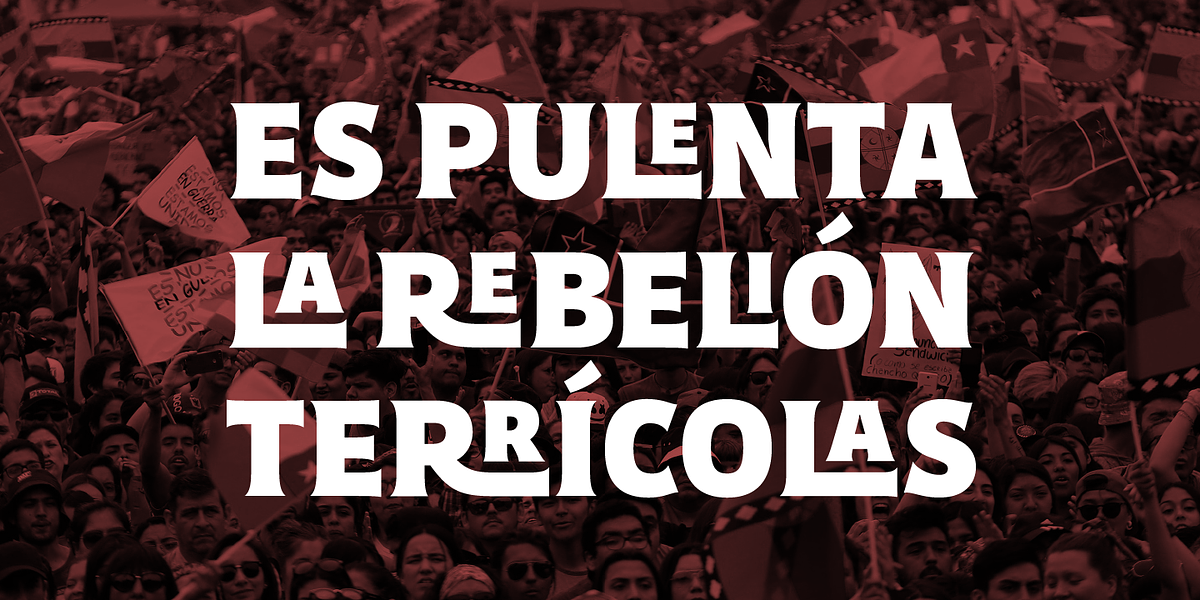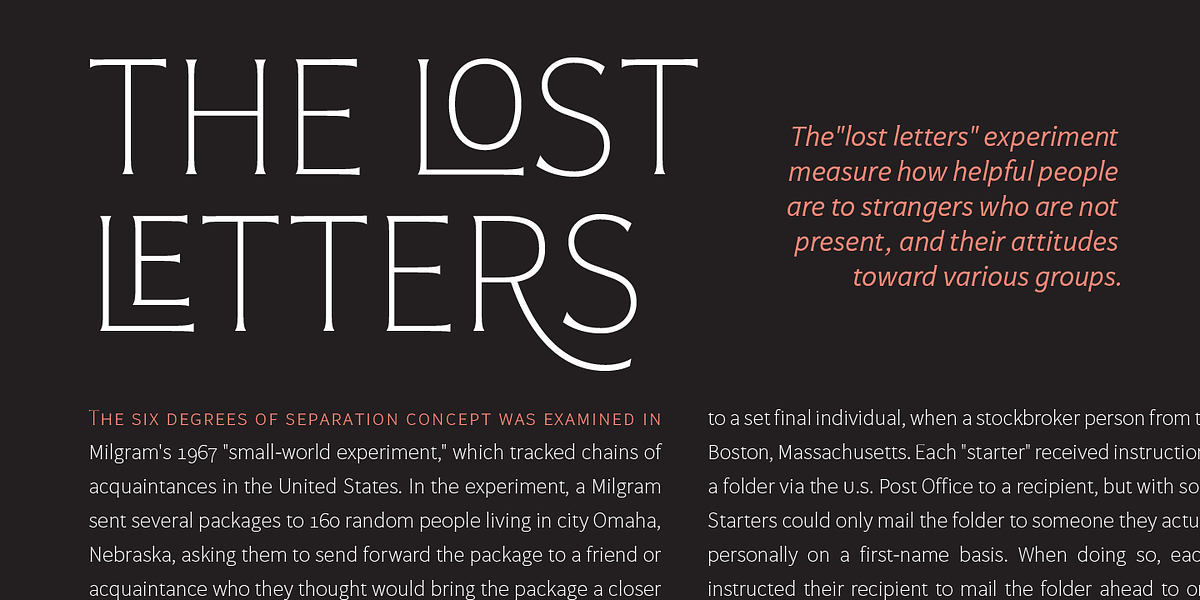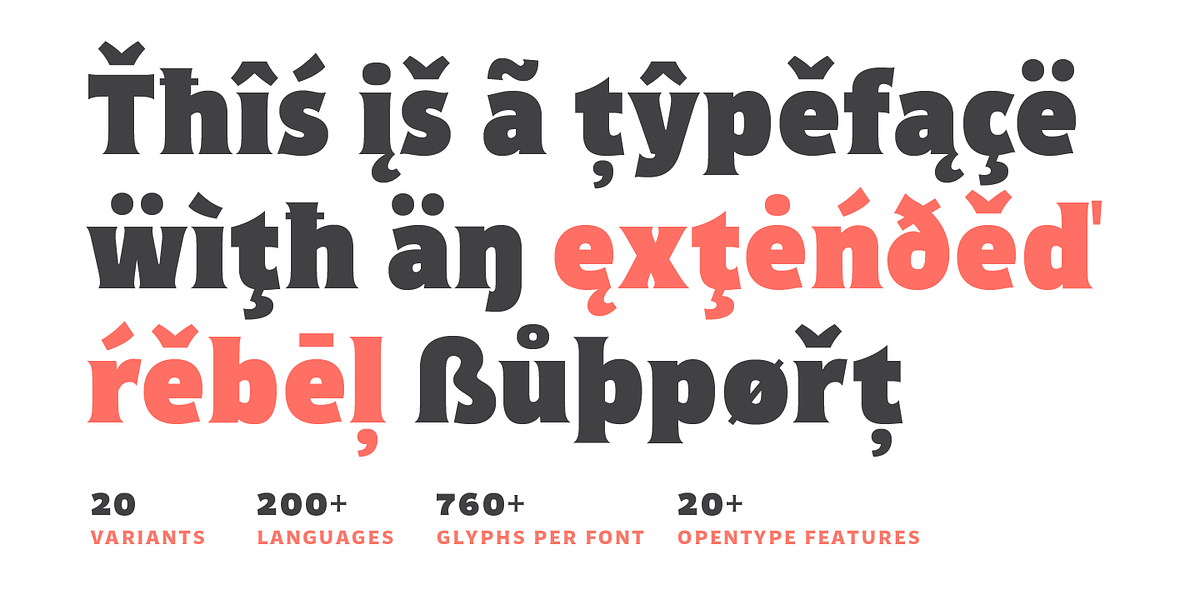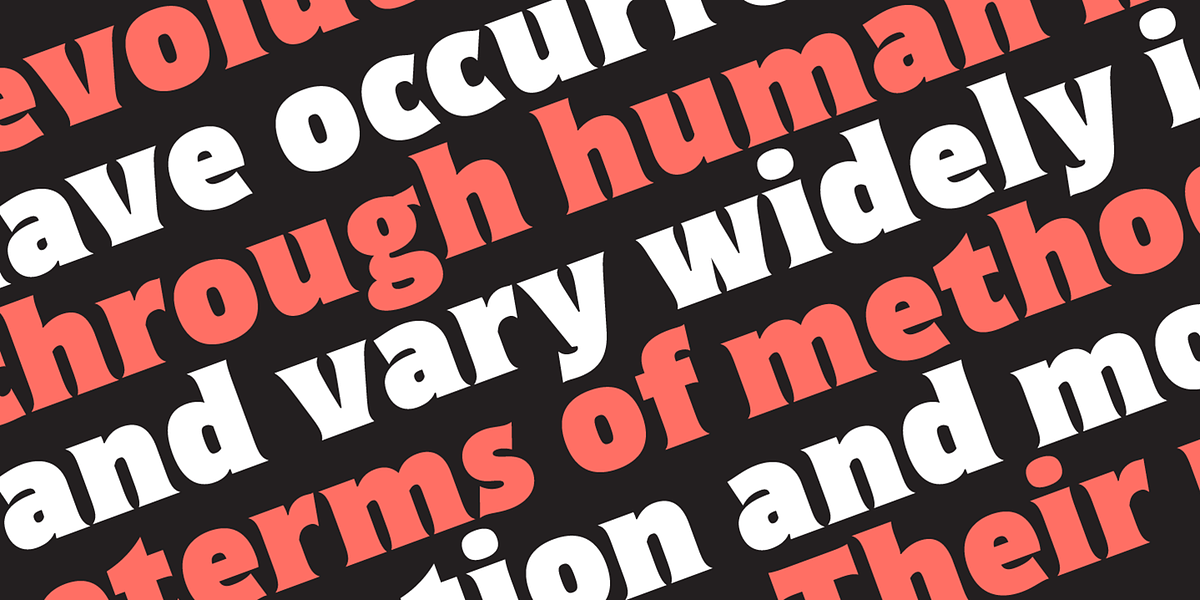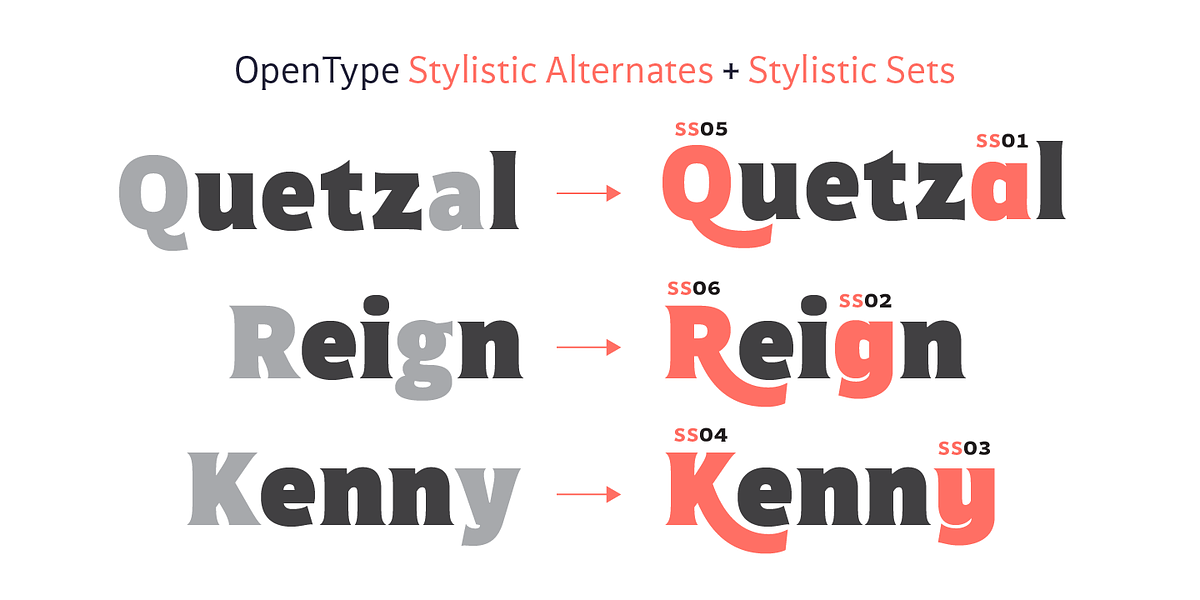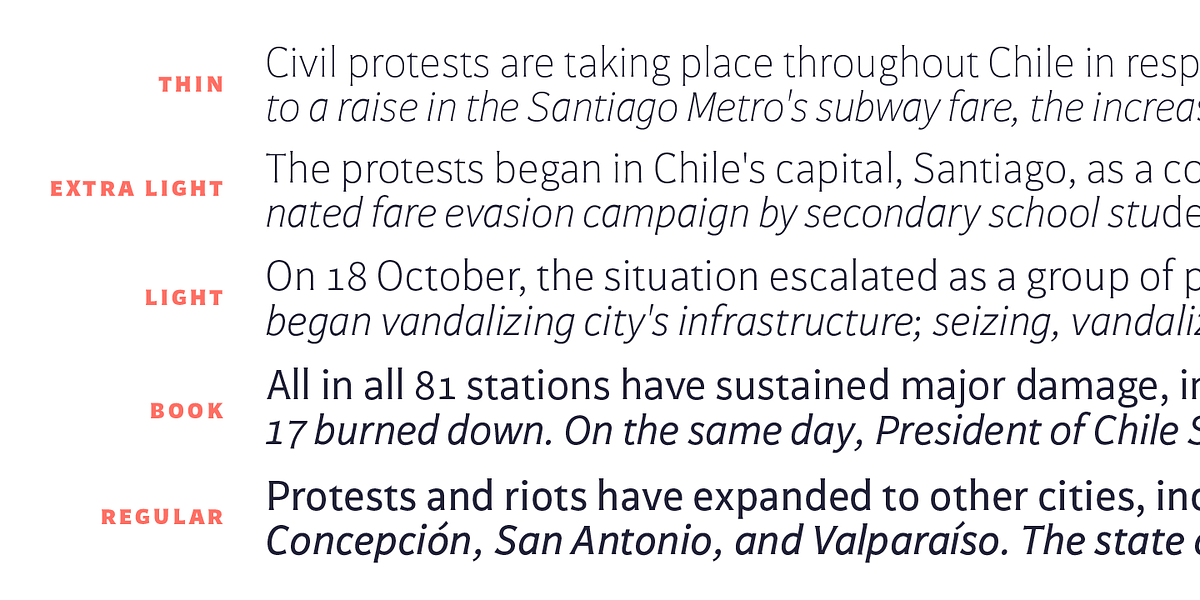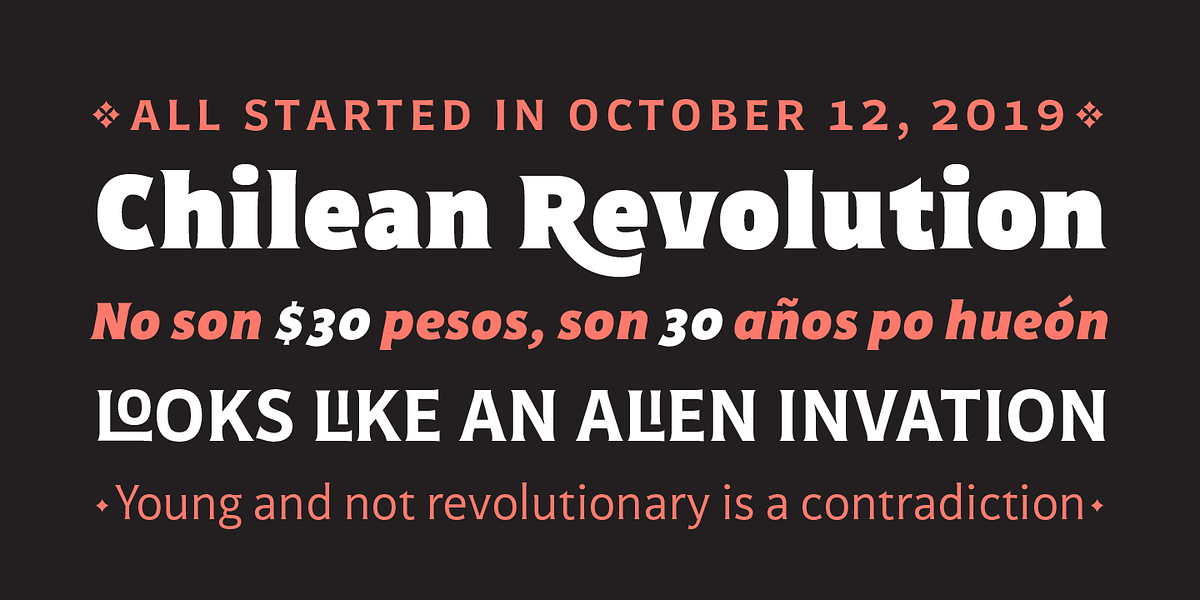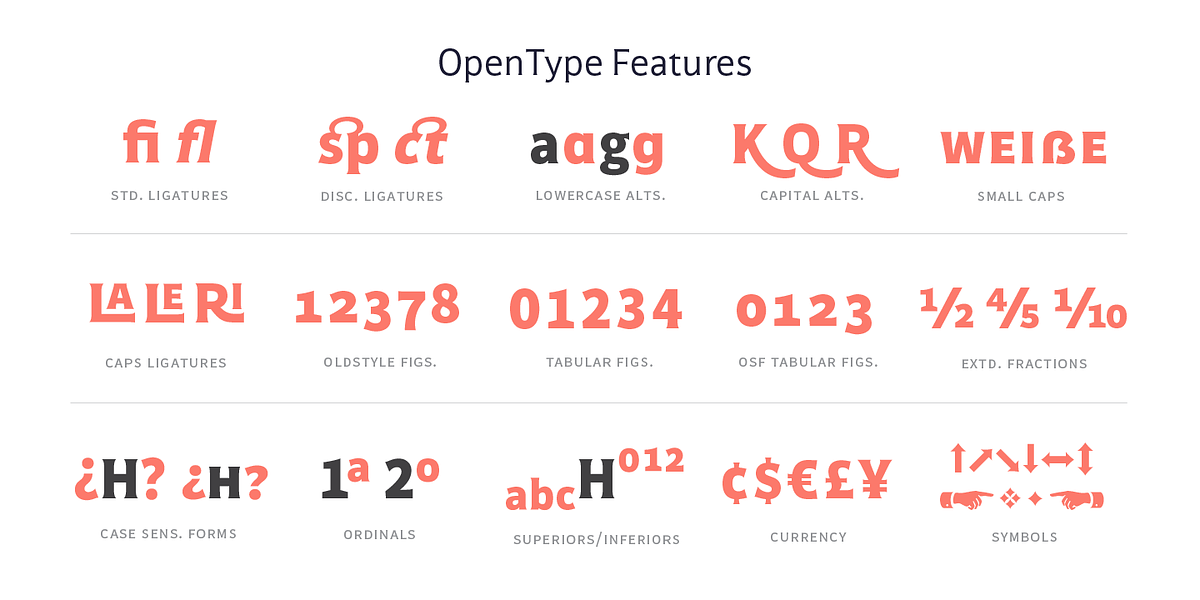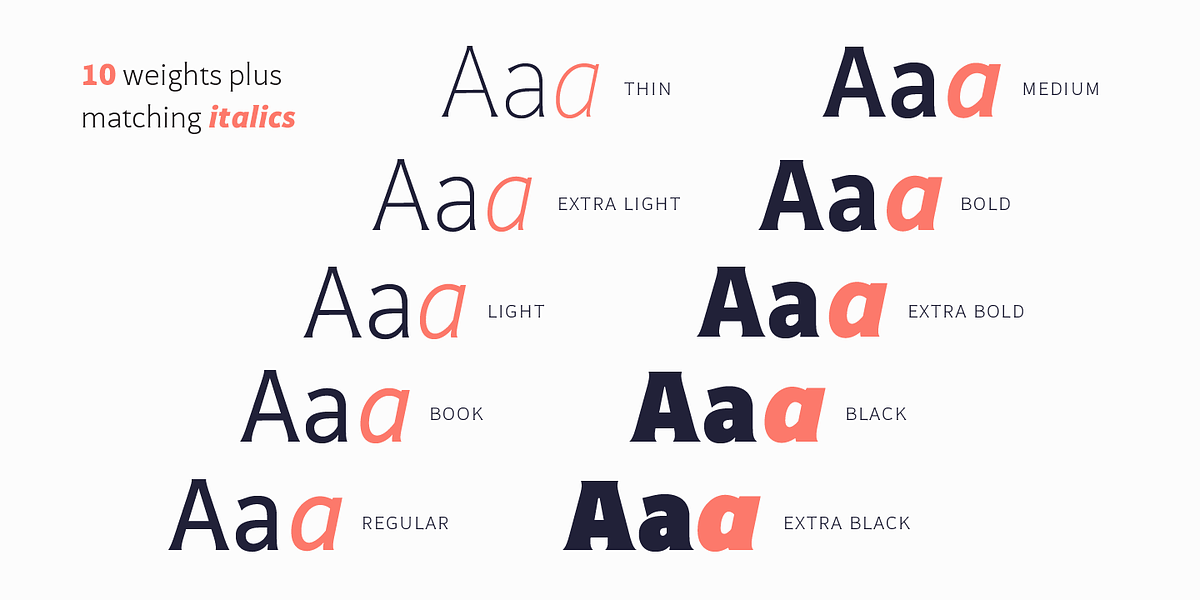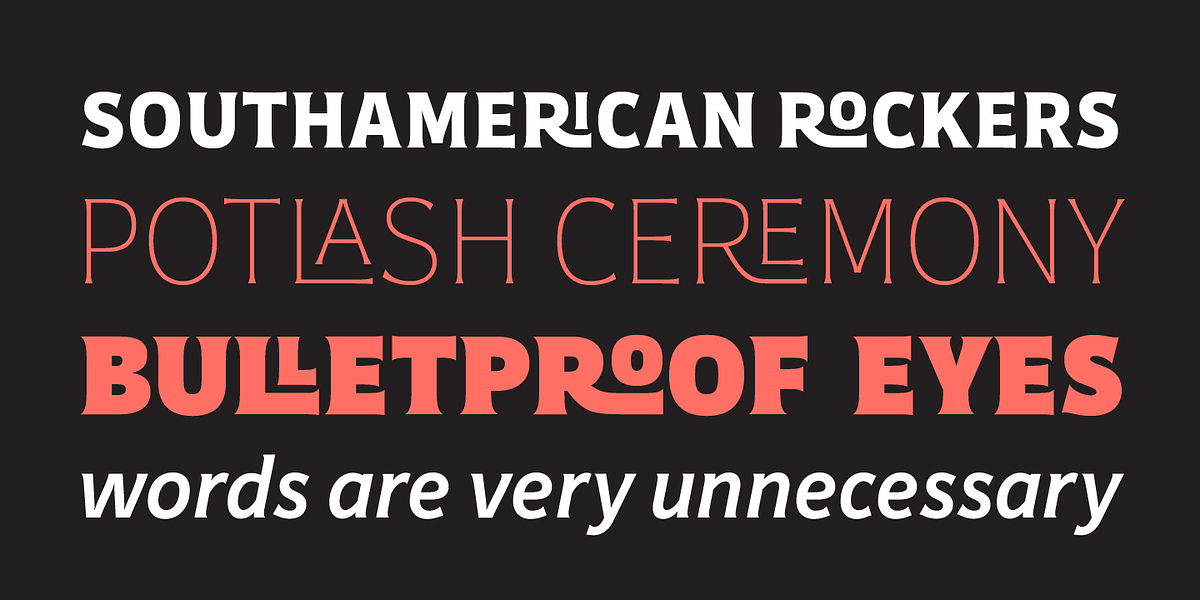
Mondo
Mondo is a sans serif typeface with flared terminals and a humanist ductus that gives it a sense of classical dignity. It is slightly condensed in the middle weights and has been carefully designed for low tension on curves, resulting in an even texture suitable for long text settings. The heavier weights feature accentuated terminals, vertical rhythm, ink traps, alternates, and ligatures making Mondo an excellent choice for headlines and display use.